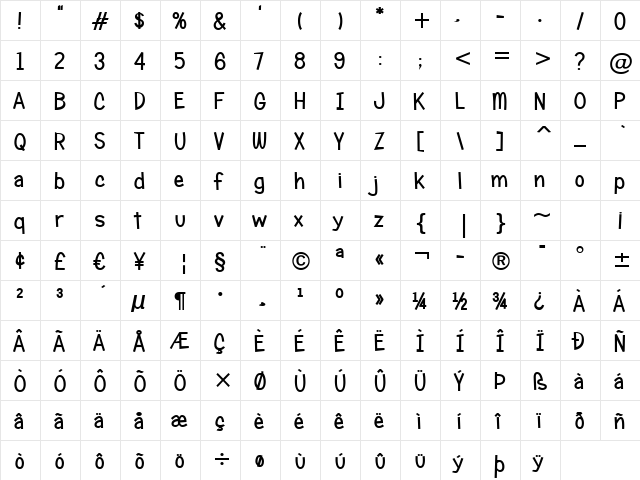
Candy Square BTN Bold
Design Context for Candy Square BTN Typeface
Candy Square BTN takes a measured approach to typography — its balanced proportions and neutral character make it a reliable workhorse for both digital and print work. Its bold stroke weight gives it real presence on the page.
Pro Tip: Use Candy Square BTN in both headline and body roles to test its range before committing to a single application.